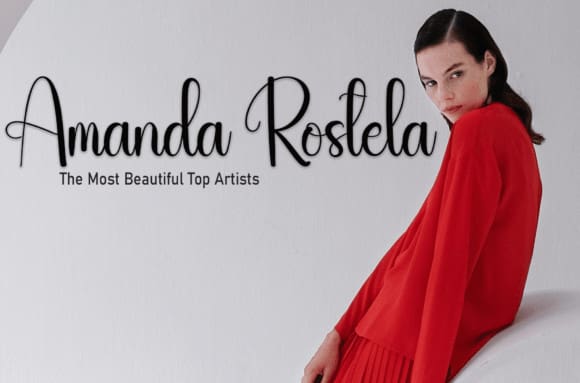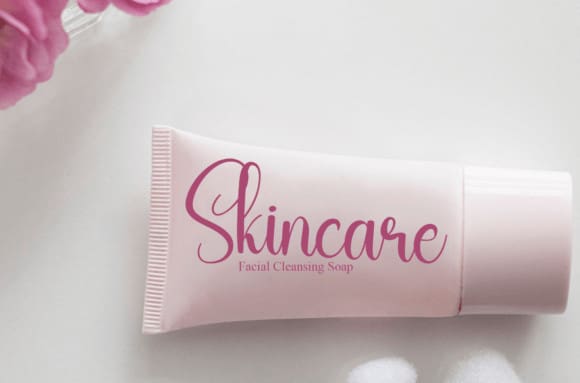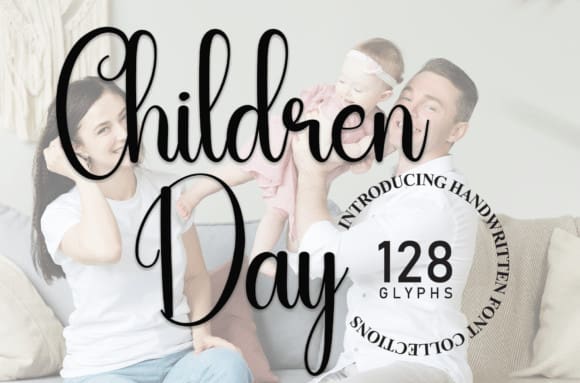
Children Day Font
Children Day Font is a sweet and friendly handwritten font. Fresh and neat, this font is ideal for writing wedding invitations, cards, or any other design that might need a fun touch!